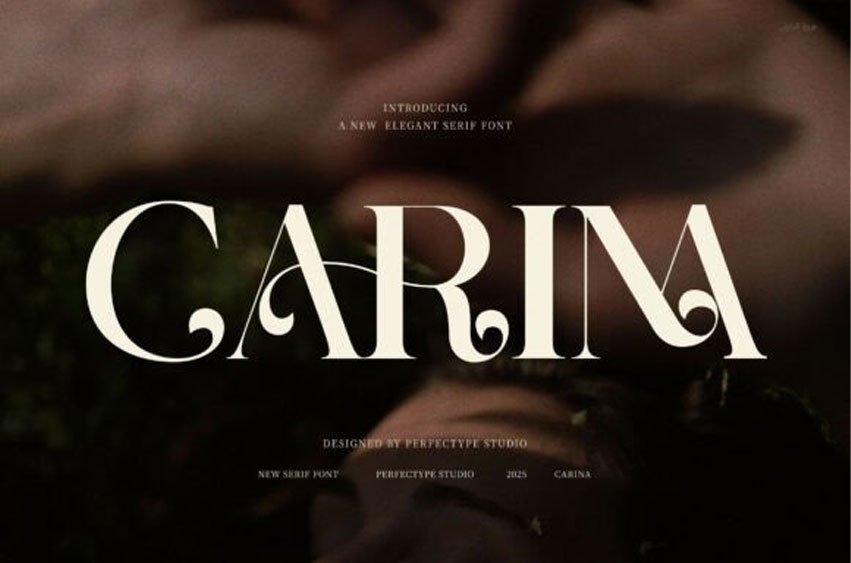
Carina Font Elegant Serif Font is a modern serif typeface designed to elevate your branding projects with grace and sophistication. This font features proportional letterforms that ensure harmony across all text sizes, making it perfect for a wide range of creative needs. Additionally, its functional ligatures provide seamless letter connections that enhance readability while adding a touch of elegance.
Whether you are designing logos, websites, magazines, or product packaging, Carina effortlessly combines beauty and practicality. It’s clean, well-balanced structure supports both bold headlines and subtle body text, offering maximum versatility. Moreover, this font’s refined style brings professionalism and charm to any design, making it an ideal choice for boutiques, food brands, advertisements, and more.
What sets Carina apart is its ability to blend modern aesthetics with classic serif qualities. As a result, your projects will stand out with timeless appeal while meeting contemporary design standards. Its carefully crafted shapes ensure consistent visual flow, which is essential for brand recognition and customer engagement.